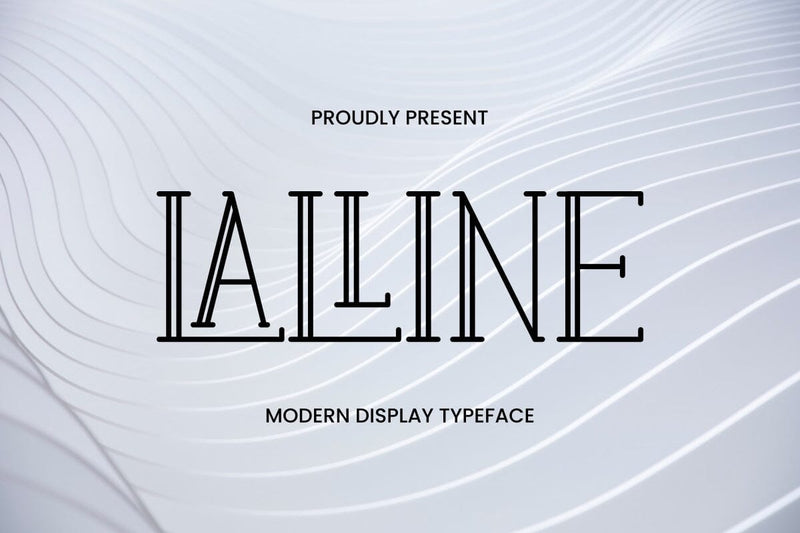
Lalline - Serif Display Font
Hi, Introducing Lalline - Modern Serif Display Font
A stunning Serif font. Serif font with a modern and creative style. This font is really cool for various creative projects such as logos, printing, book covers, titles, labels, logotypes, business needs, branding, craft, sports, sports business, and many other creative ideas.